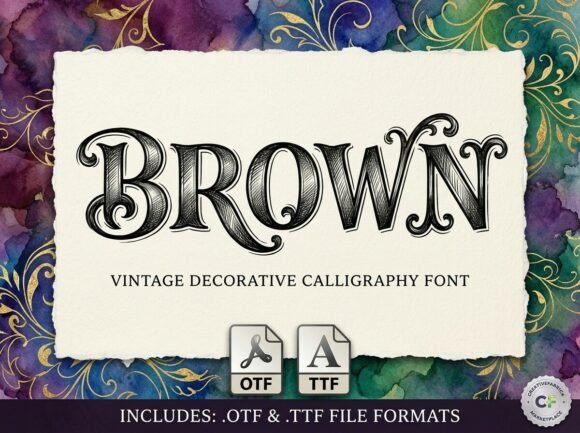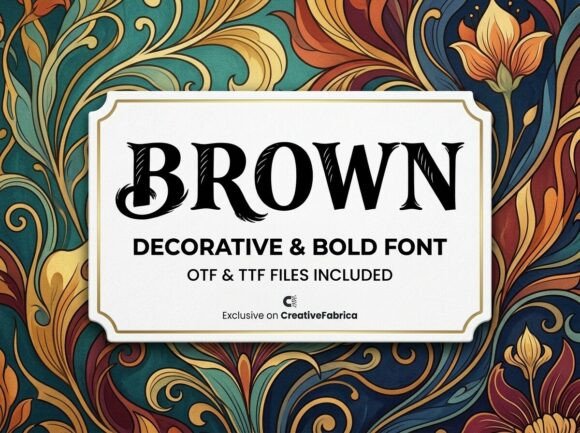
Brown Font: Elevate Your Designs with a Stunning Decorative Display Font
Are you tired of using the same old fonts in your designs? Do you want to add a touch of uniqueness and creativity to your work? Look no further than the Brown Font, a decorative display font that’s sure to turn heads. In this article, we’ll take a closer look at what makes this font so special and how you can use it to take your designs to the next level.
The Brown Font is a stunning decorative display font designed to be the center of attention. With its unique artistic elements and strong visual personality, this font is perfect for creators who want to break away from the ordinary. Whether you’re working on a bold headline, artistic logo, or creative packaging, this font is versatile enough to make a lasting impression.
The Brown Font is perfect for designers and crafters who want to add a touch of elegance and sophistication to their work. With its unique and artistic elements, this font is ideal for:
- Headlines and titles – Use the Brown Font to create eye-catching headlines and titles that demand attention.
- Logos and branding – Create a lasting impression with a custom logo that showcases your brand’s personality.
- Packaging and labels – Add a touch of creativity to your packaging and labels with this stunning decorative font.
- Artistic projects – Use the Brown Font to add a touch of elegance and sophistication to your artistic projects.
Tips for Using the Brown Font
Here are some tips for getting the most out of the Brown Font:
- Use it sparingly – Because of its bold and artistic nature, it’s best to use the Brown Font sparingly. Use it for headlines and titles, and pair it with a simpler font for body text.
- Experiment with colors – The Brown Font looks great in a variety of colors. Experiment with different colors to find the one that works best for your design.
- Pair it with other fonts – Don’t be afraid to pair the Brown Font with other fonts to create a unique and visually appealing design.
The Brown Font is a stunning decorative display font that’s perfect for designers and crafters who want to add a touch of uniqueness and creativity to their work. With its unique artistic elements and strong visual personality, this font is sure to turn heads. Whether you’re working on a bold headline, artistic logo, or creative packaging, the Brown Font is versatile enough to make a lasting impression. So why wait? Get your hands on the Brown Font today and take your designs to the next level!